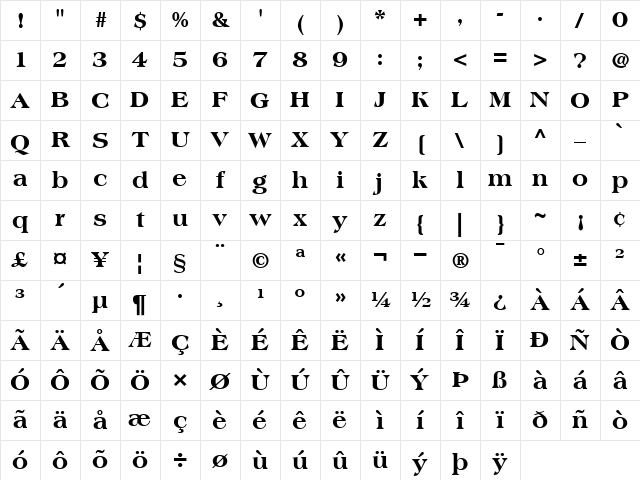
Americana-ExtraBold Extra Bold Free Font
Americana-ExtraBold Extra Bold
Style: Extra Bold
Design Context for Americana-ExtraBold
Americana-ExtraBold is a composed and adaptable typeface that performs quietly and consistently across a wide range of design contexts. Its bold stroke weight gives it real presence on the page.